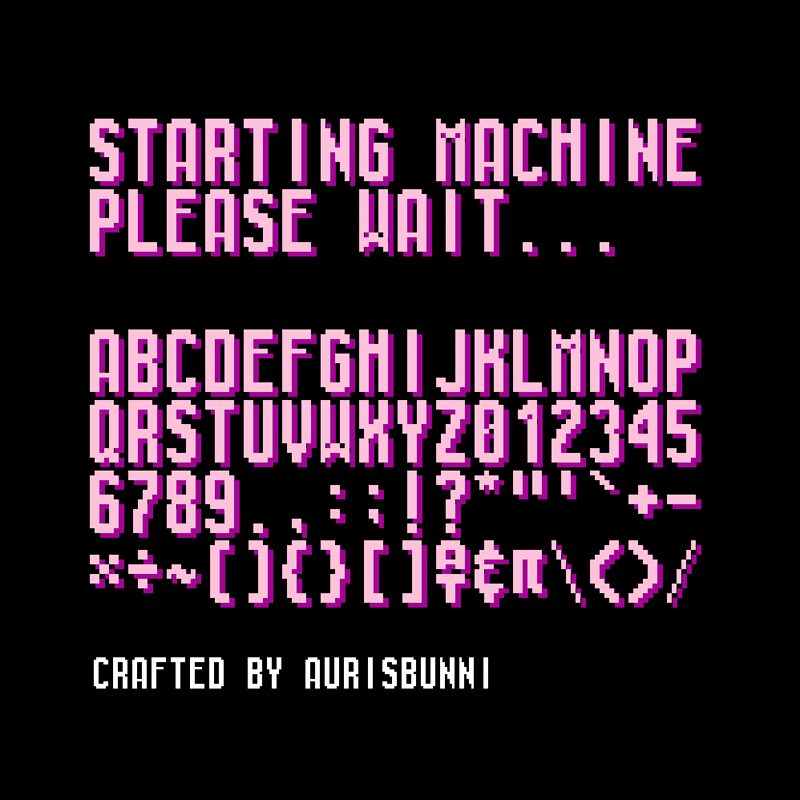
Starting Machine
Starting Machine, a creation by renowned font designer aurisbunni, is an exceptional pixelated font that takes its inspiration from the nostalgic "Starting Machine / Please Wait..." screen found in unauthorized NES console games.
With its distinct bitmap style and extra-condensed width, this font is perfect for adding a retro gaming touch to your creative projects. Whether you're designing video game logos, website headers, or even custom merchandise for gamers, Starting Machine will transport your audience back to the golden era of 8-bit gaming.
Embrace the charm of pixel art and let Starting Machine elevate your designs to new levels of vintage authenticity.